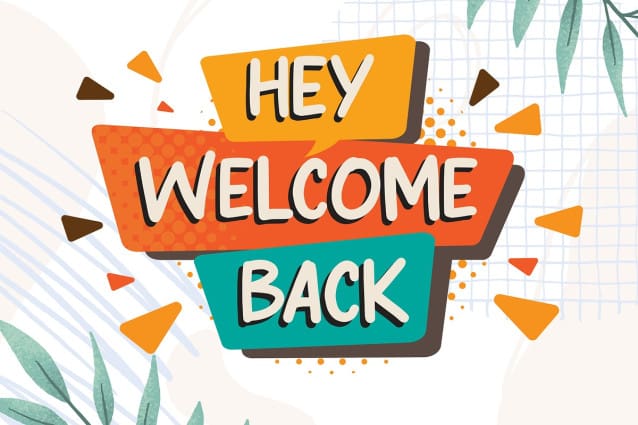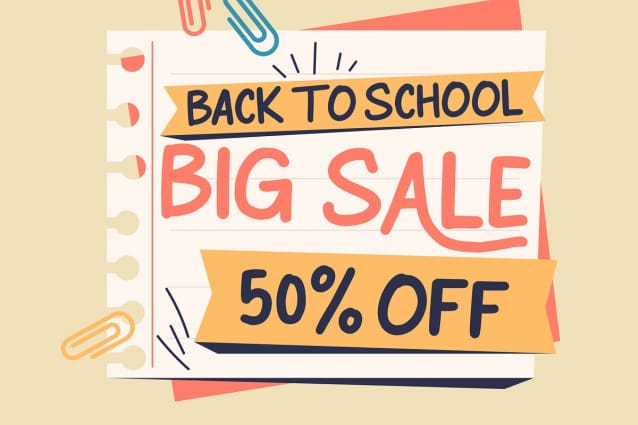
Bosse Font
Bosse Font, a beautifully crafted handwritten font that brings a personal and authentic touch to your designs. With its natural, flowing strokes and organic feel, Bosse captures the essence of true handwriting, making it perfect for a variety of creative projects that need a warm and inviting aesthetic.
Ideal for greeting cards, invitations, social media graphics, branding materials, and more, Bosse adds a genuine and heartfelt touch to your work. Each character is meticulously designed to reflect the spontaneity and individuality of hand-drawn lettering, ensuring your designs stand out with a unique and personal flair.
The Bosse font includes a complete set of uppercase and lowercase letters, numbers, and punctuation marks, providing versatility and flexibility for all your design needs. Whether you’re creating charming invitations or stylish social media posts, Bosse enhances your projects with its genuine and expressive style.
Add a touch of authenticity to your designs with Bosse Font, the handwritten font that brings every letter to life.